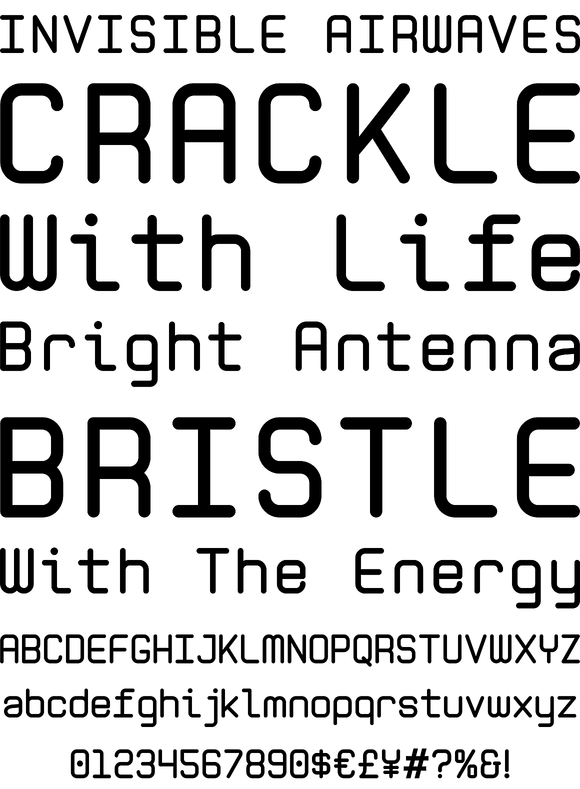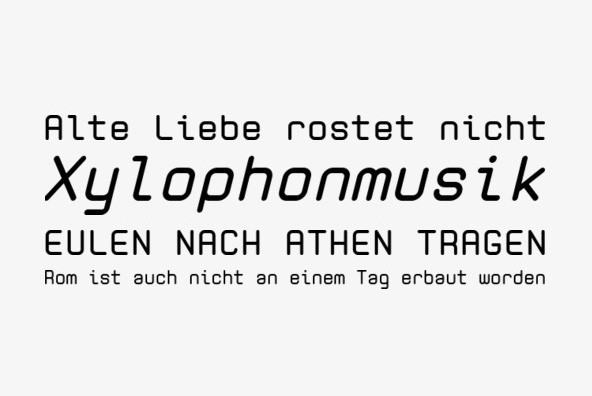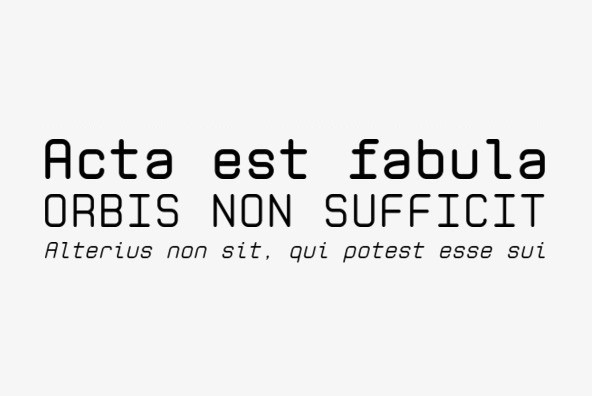
Zolan Mono
Foundry: Breaking The Norm
Zolan Mono was developed for developers in mind! It provides a clean easy to read on-screen display and has a fresh modern feeling.